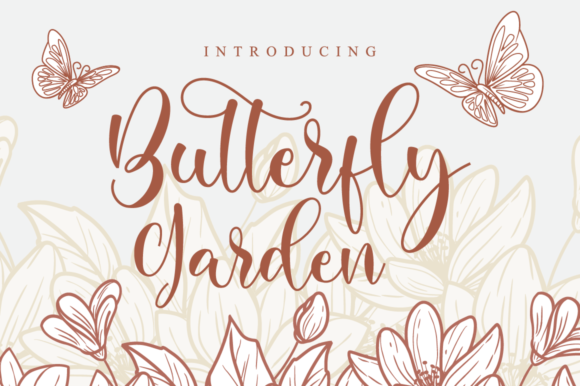
The Magic of Butterfly Garden Font: A Designer’s Delight
I’ll never forget the moment I stumbled upon the Butterfly Garden font. I was working on a DIY project for a client’s wedding invitation, and I was struggling to find the perfect script font that exuded elegance and modernity. As I scrolled through my font library, Butterfly Garden caught my eye, and I knew I had found the one. Its beautiful, flowing lines and stunning alternates instantly elevated my design, and the client loved it! In this article, I’ll share with you why I’m obsessed with this font, its features, and how to make the most of it in your designs.
A Personal Review: What I Love and What I Think Could Be Improved
• 💫 Modern and Classy Look: Butterfly Garden has a sophisticated, modern feel that makes it perfect for high-end DIY projects, wedding invitations, and branding.
• 🌈 Varying Baseline and Smooth Lines: The font features a varying baseline and smooth lines, giving it a natural, hand-written feel.
• 🎨 Gorgeous Glyphs and Alternates: Butterfly Garden comes with a range of stunning glyphs and alternates, allowing you to add a personal touch to your designs.
• ⚠️ Some Alternates Can Be a Bit Finicky: Occasionally, some alternates may not work as expected in certain design software. But don’t worry, this is easily fixable by adjusting the font settings or using a different software.
• 🤔 May Not Be Suitable for Body Text: Due to its script nature, Butterfly Garden may not be the best choice for body text. It’s better suited for headings, titles, and short paragraphs.
The Story Behind Butterfly Garden
Butterfly Garden was designed by a talented font creator who wanted to capture the essence of a whimsical garden. The designer was inspired by the delicate movements of butterflies and the beauty of flowers. The result is a font that’s both elegant and playful, perfect for a wide range of design projects.
Q: Is Butterfly Garden suitable for body text?
A: Due to its script nature, Butterfly Garden is better suited for headings, titles, and short paragraphs. For body text, consider using a more legible font.